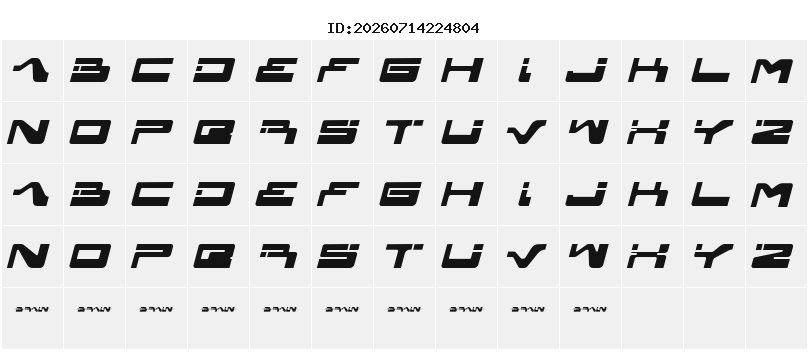
yagiza Preview
• Font Name: yagiza
• Full Font Name: yagiza
• PostScript Name: Yagiza
About yagiza.ttf
yagiza.ttf is a modern, elegant sans-serif font designed for ultimate readability and visual harmony. Perfect for branding, headlines, web design, and print materials.